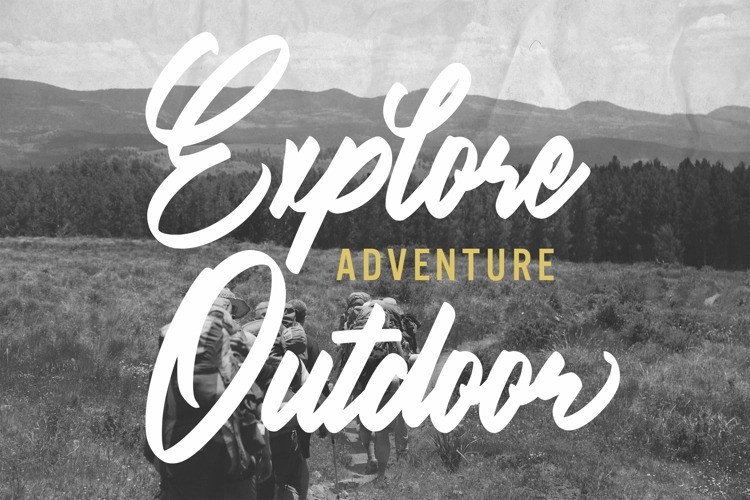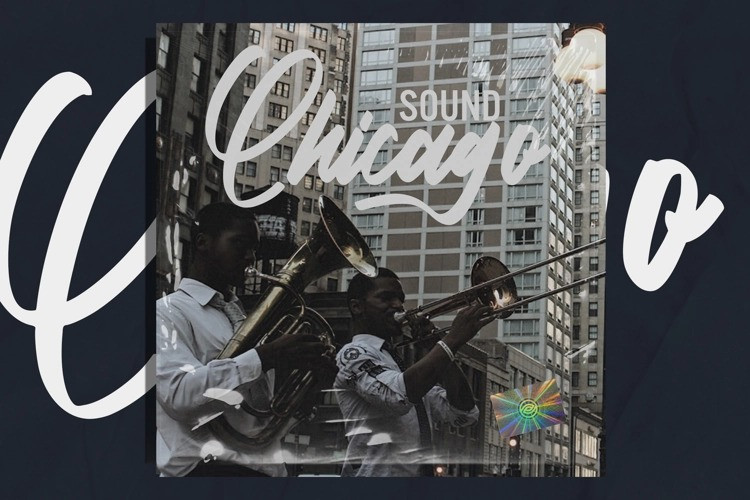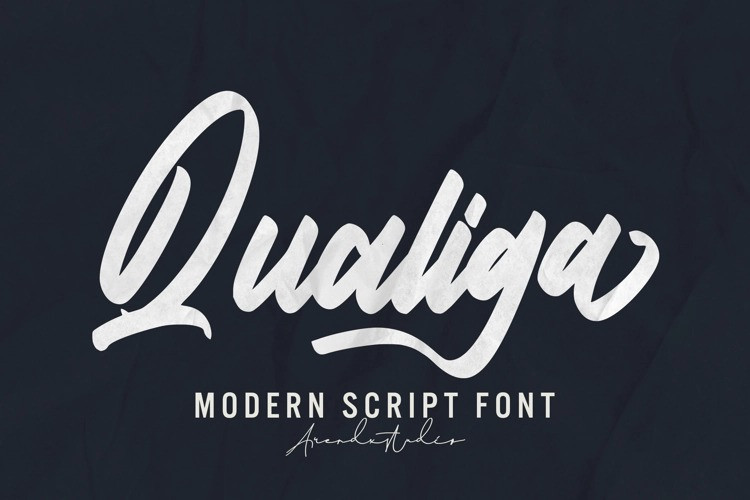
Qualiga Script Font
It’s a natural, cursive, and stylish handwritten typeface with sharp and beautiful letters that create fonts that are modern, tendy and elegant. Qualiga came with opentype features such stylistic alternates, stylistic sets & ligatures good for logotype, poster, badge, book cover, tshirt design, packaging and any more.